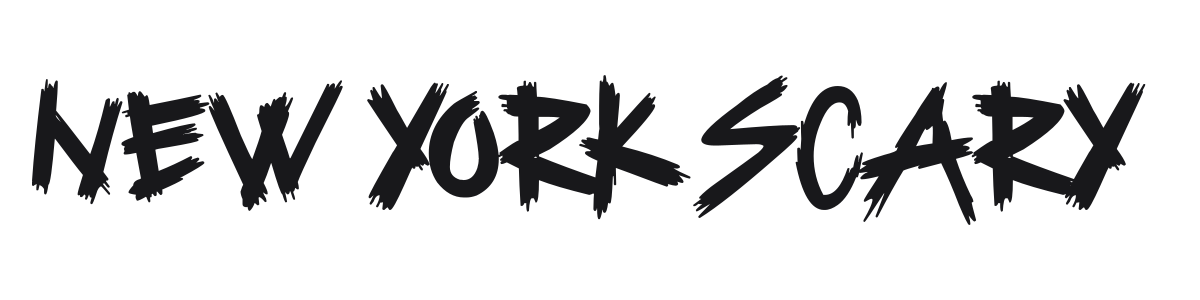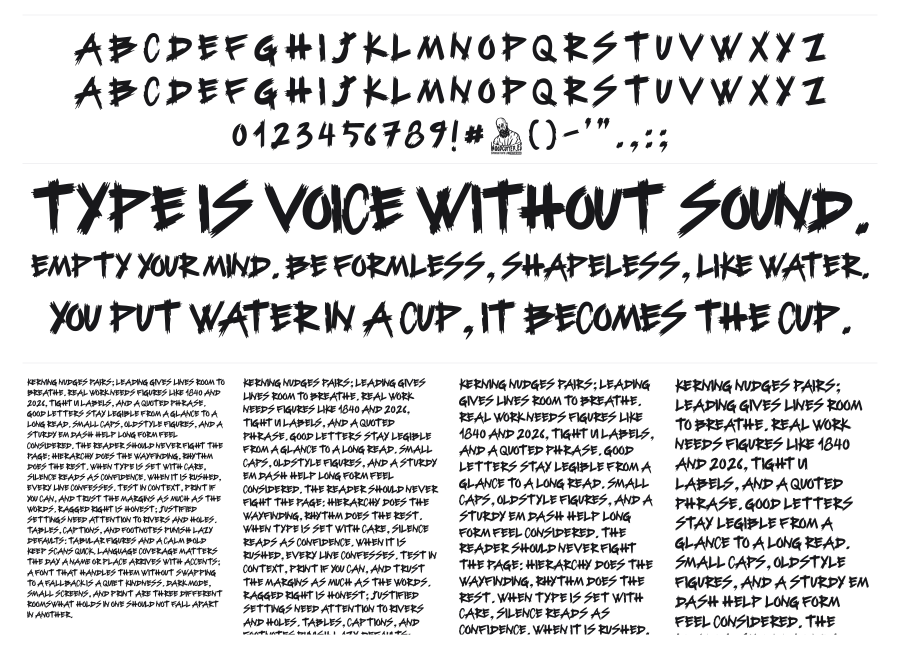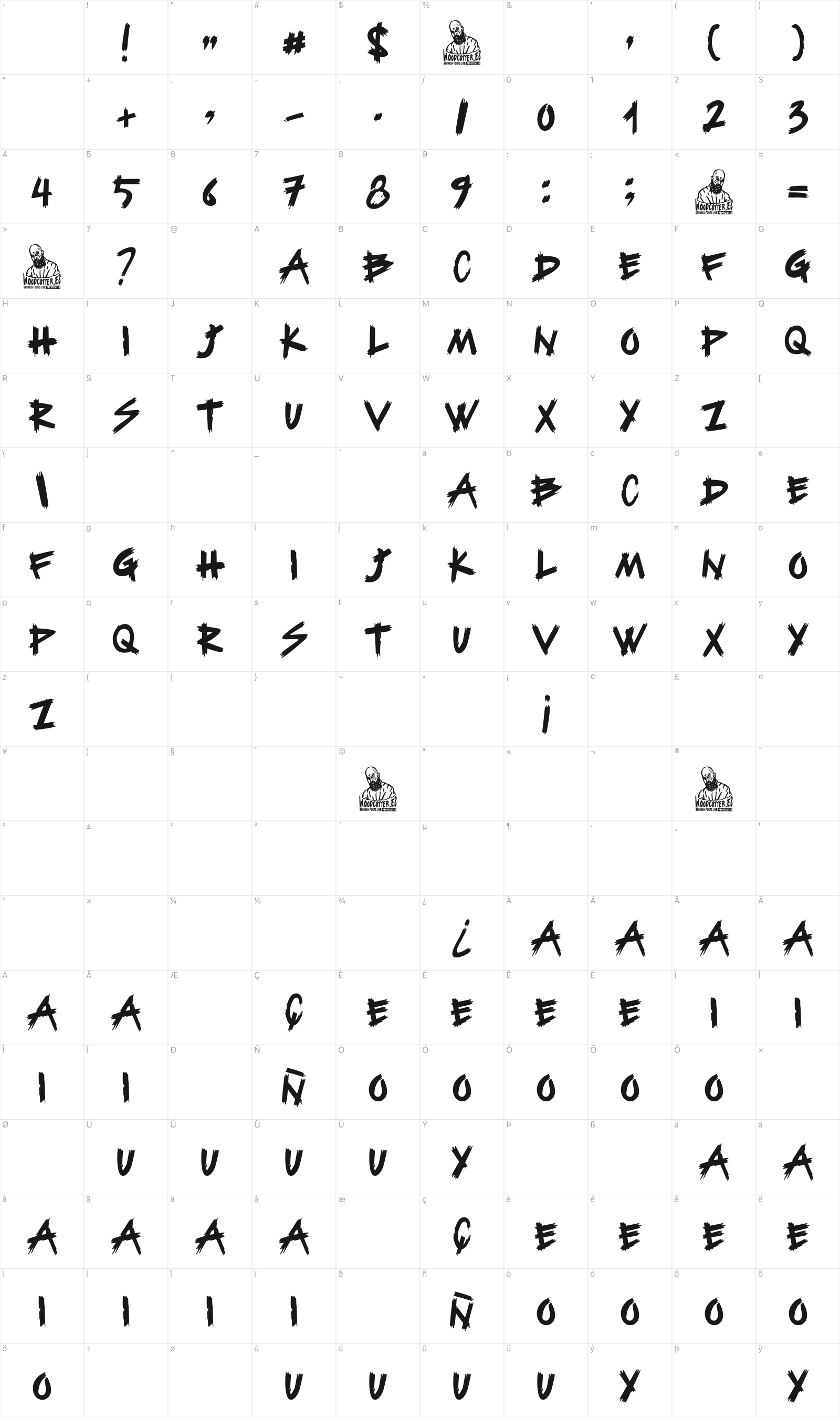
New York Scary
New York Scary is a gritty brush-script from Woodcutter with the raw energy of a slasher-film title scrawled in haste. Frayed stroke endings, wild baseline irregularities, and heavy bristle texture make every word feel like it was painted under pressure. Strong at large sizes for horror posters, metal album covers, or anything that needs an unsettling edge.